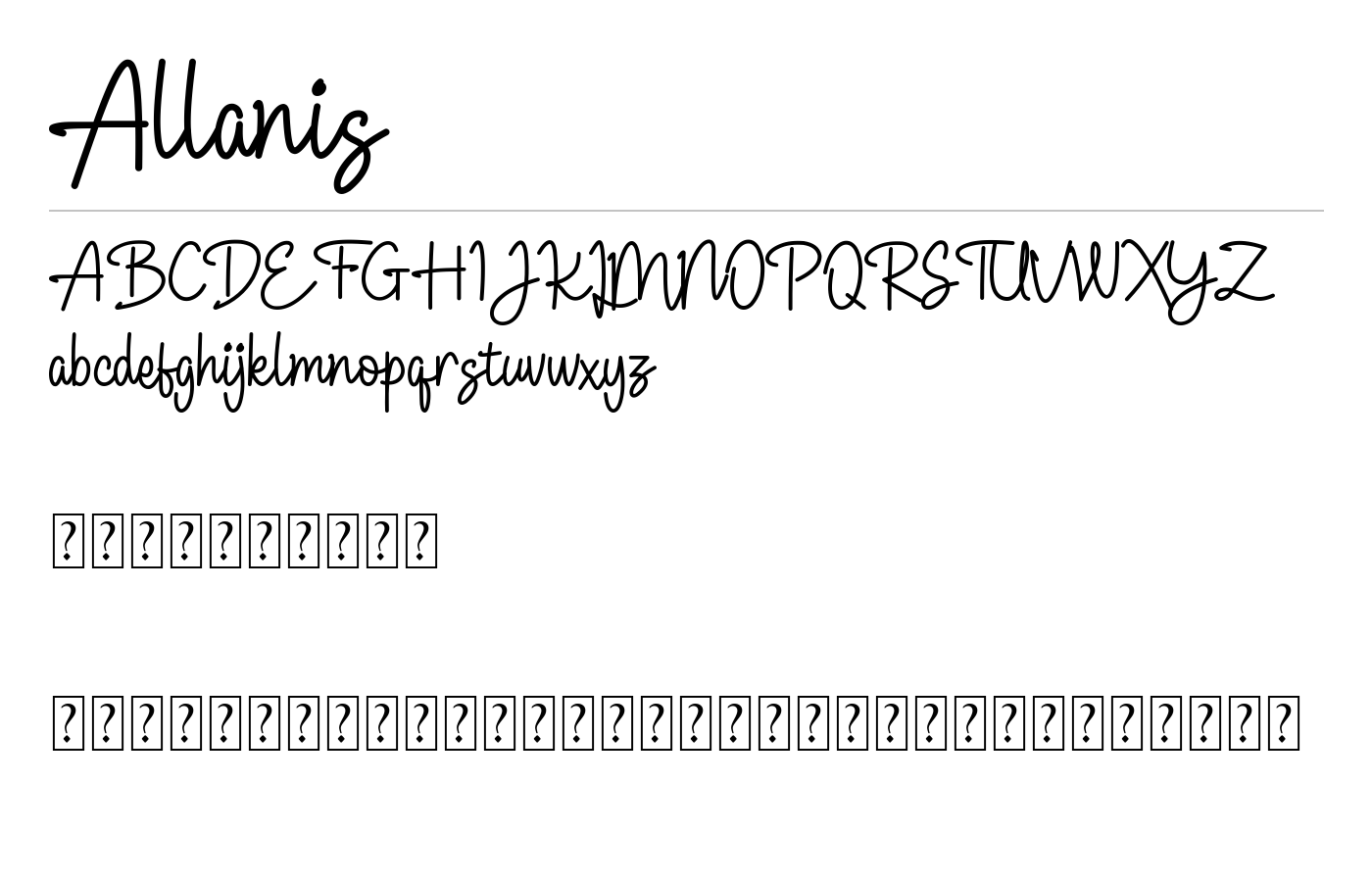
Allanis is a playful and informal handwritten script font with a light weight and tall, narrow letterforms. Its smooth, flowing strokes give it a friendly and approachable feel, making it ideal for casual branding, personal invitations, or creative projects that want to convey warmth and personality. This font works best in headlines or short text where a personal touch and a relaxed, modern vibe are desired.
Allanis Font
About Allanis Font
| Font family | Allanis Font |
| Designer | Nurf Designs |